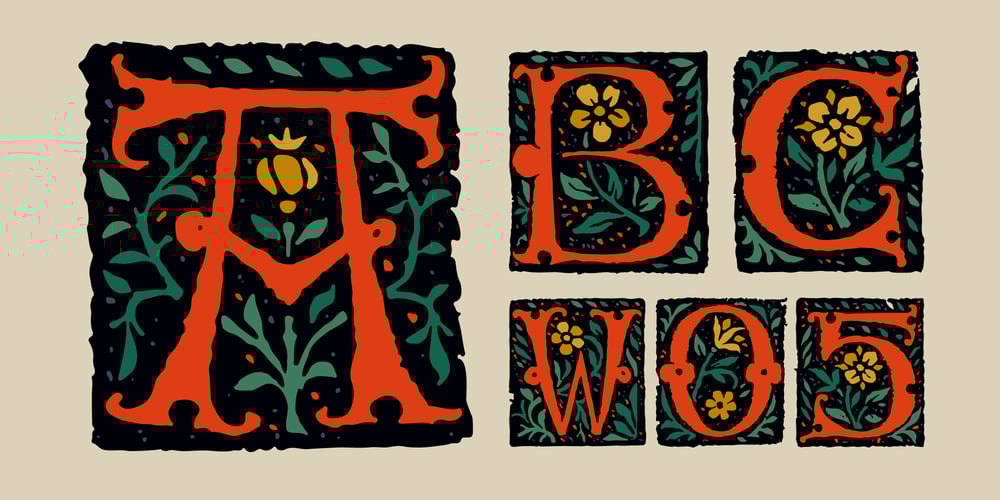
Antoine Drop Caps Font Family was designed by Roman Korolev and published by Kaer. Antoine Drop Caps contains 3 styles and family package options. These initials set I collected from “Tristan of the Round Table”, published approximately in 1513, by Antoine Verard.Antoine drop caps font family has Regular, Light and Colored styles. It’s all you need to precisely imitate medieval style text. Use this font as a decorative element at the beginning of a paragraph or section, other part of the paragraph should be in regular black letter font.You’ll get Drop Caps & Numbers set.—*You can use color fonts in PS CC 2017+, AI CC 2018+, ID CC 2019+, macOS 10.14 Mojave+ **Please note that the Canva & Corel & Affinity doesn’t support color fonts!**Please download this test file with only A letter ( https://www.dropbox.com/s/lpzmdikw0ewxozx/AntoineDropCaps-Test.otf?dl=0 ) to check your app & system.*—Please feel free to request any help you need: kaer.pro@gmail.comBest, Roman.